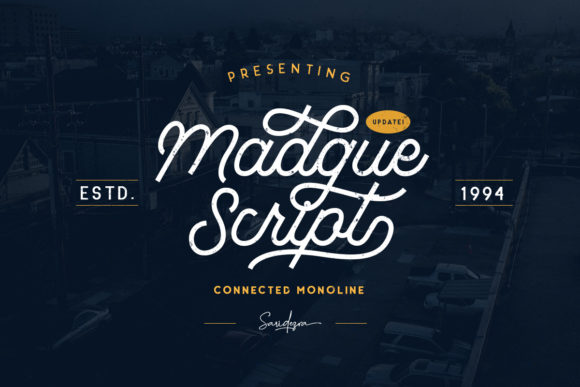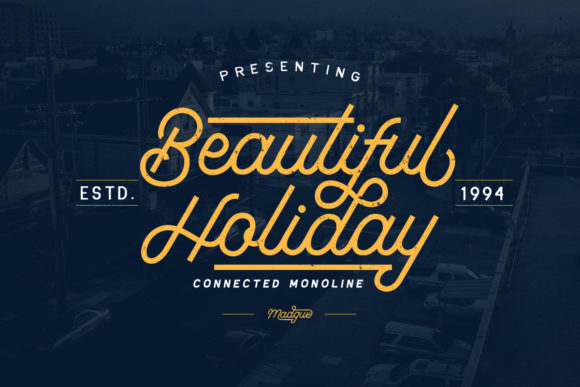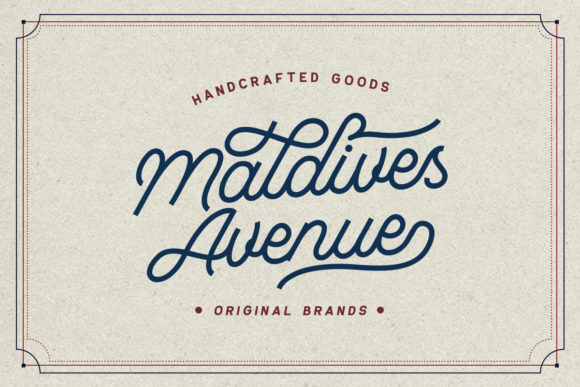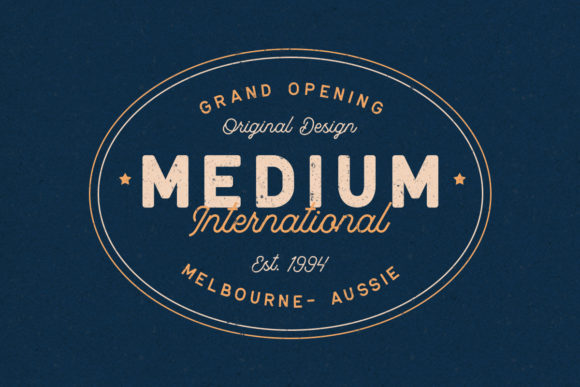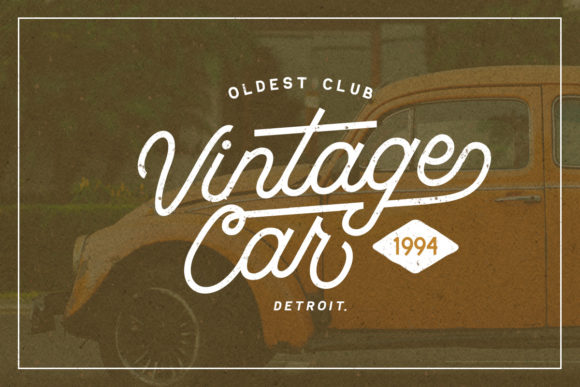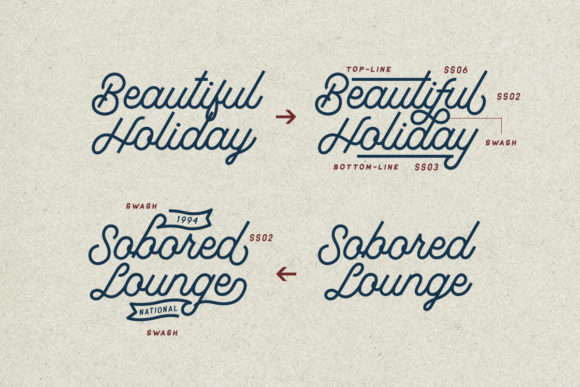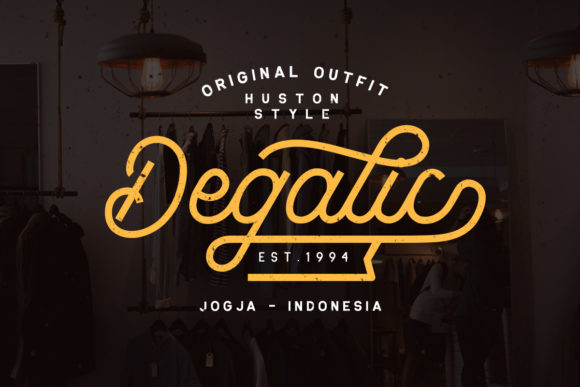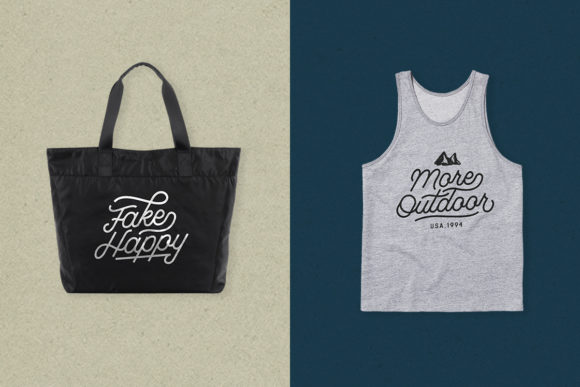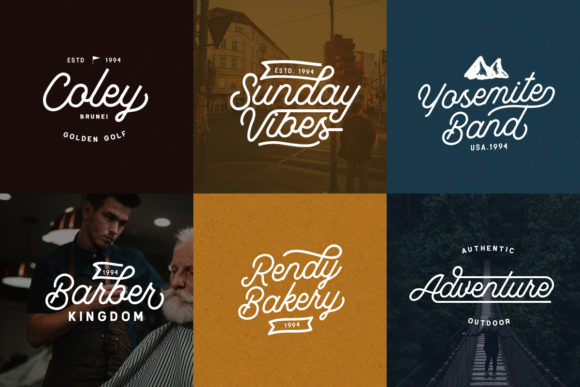
Madgue Font
About Madgue Font
The Madgue is an unique mono line typeface. It comes in a regular and swash version and includes pre made logos as a bonus!